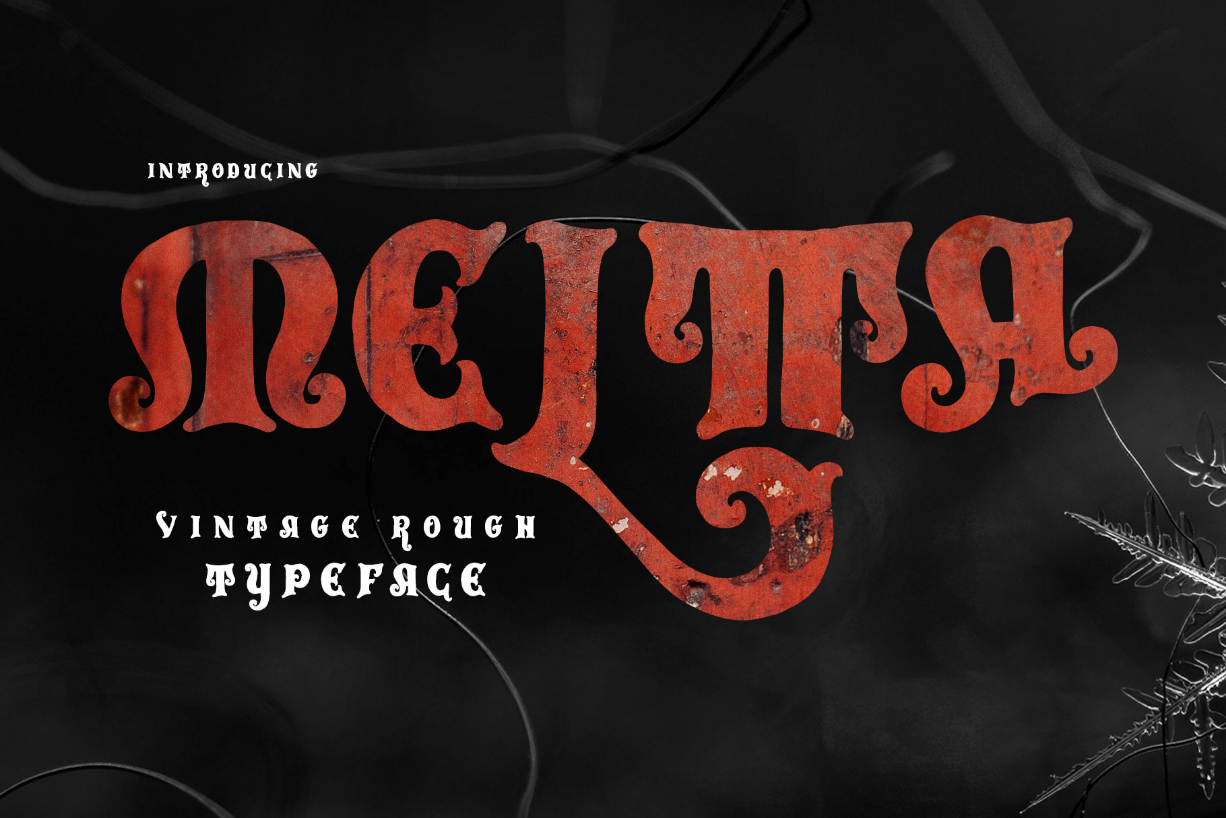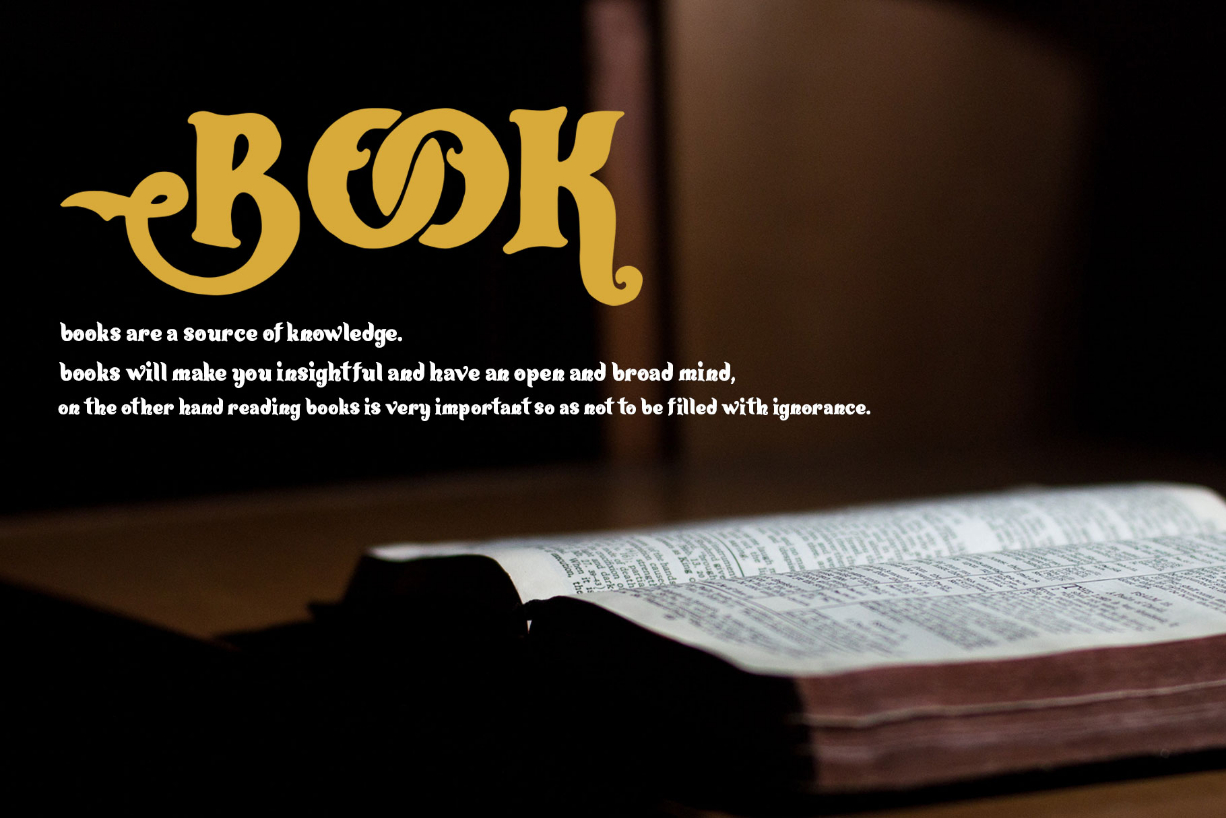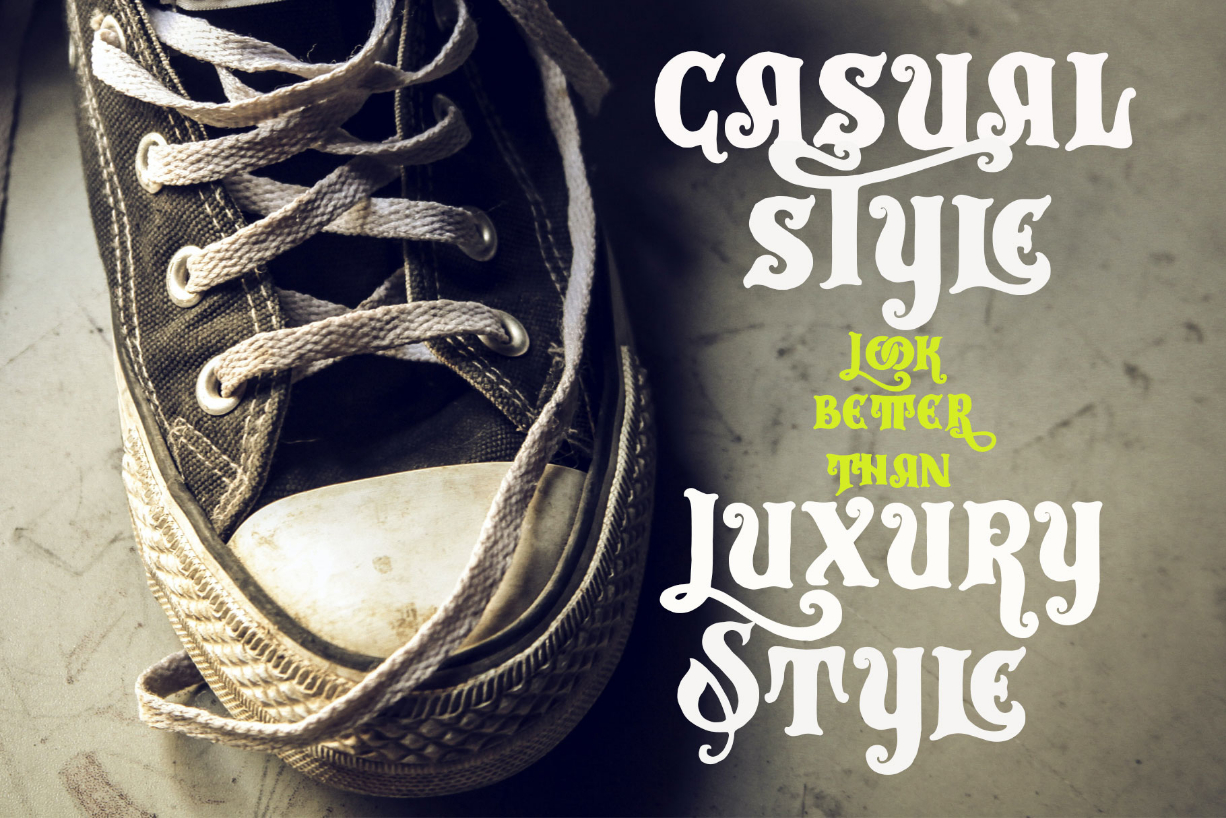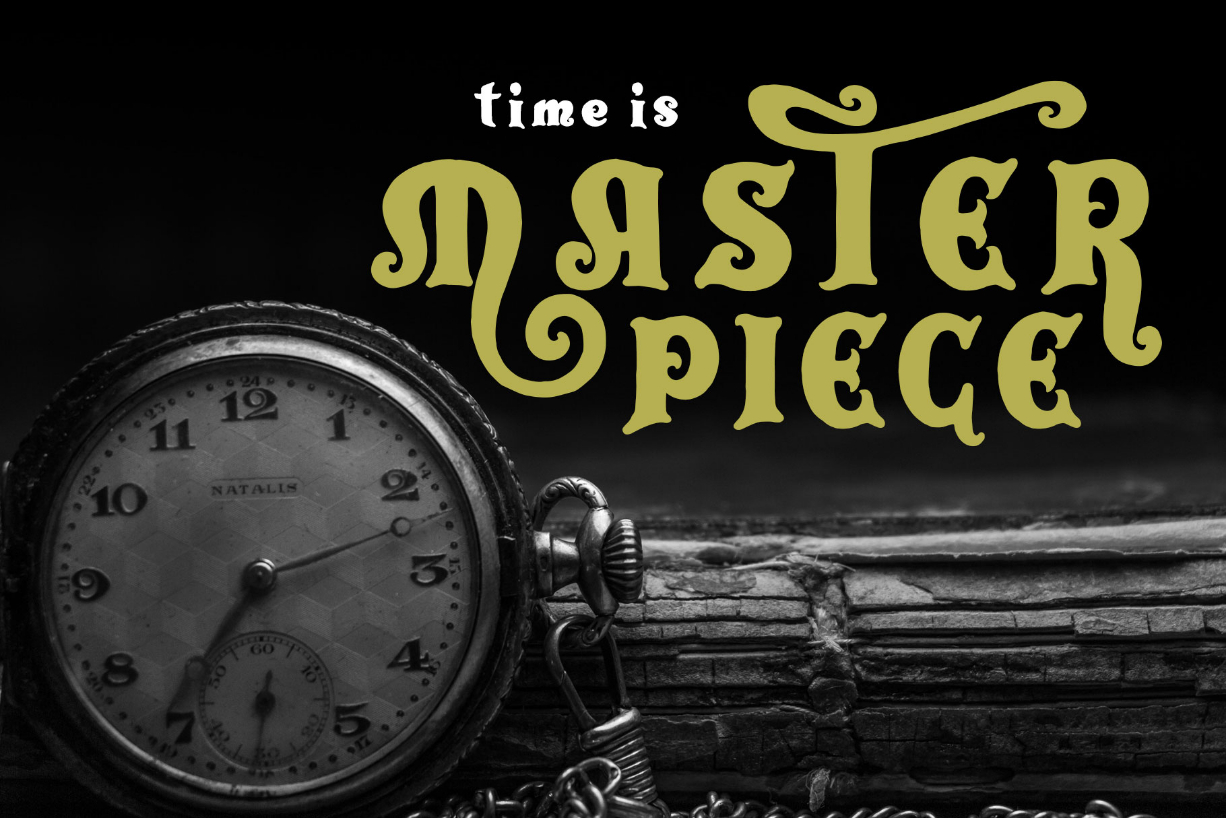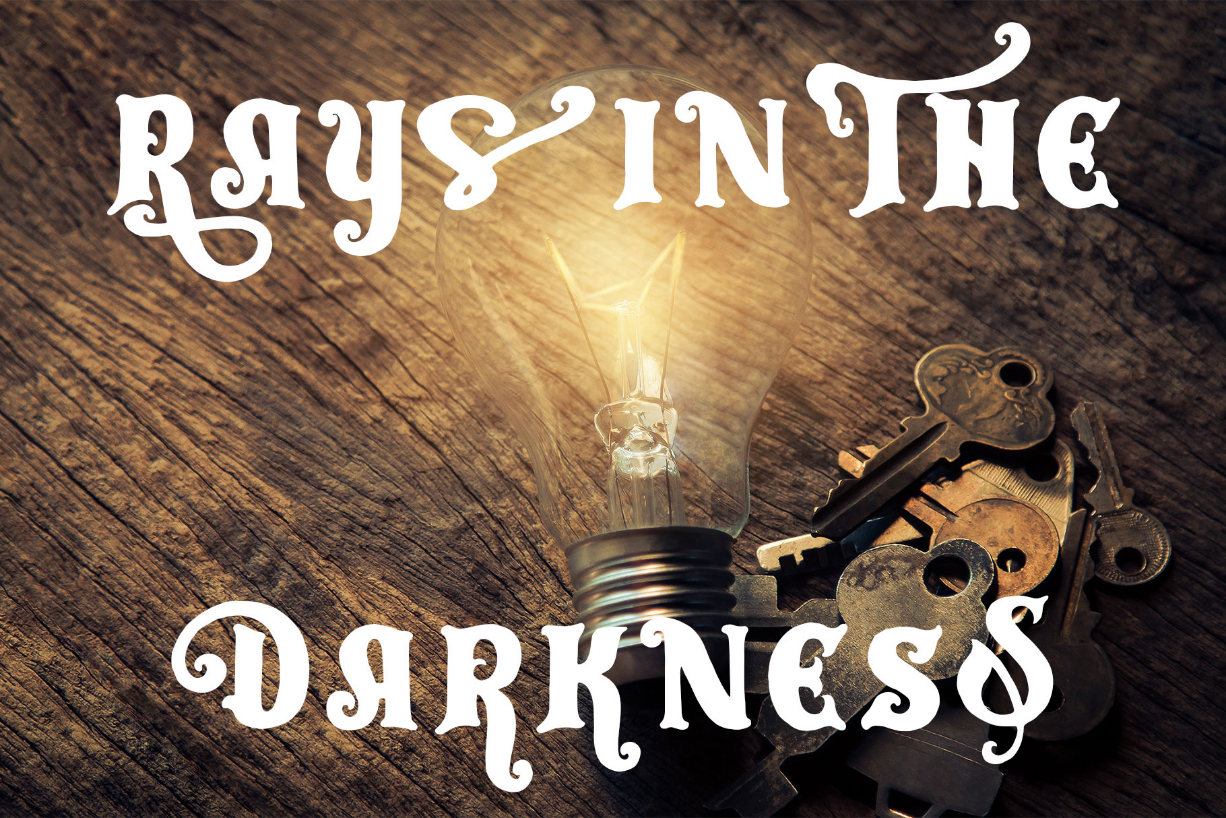
Meltta Font
About Meltta Font
Meltta is a unique blackletter font with an old gothicfeel. The Meltta font is very suitable for design themed with gothic, vintage, rock designs and for whiskey packaging designs.